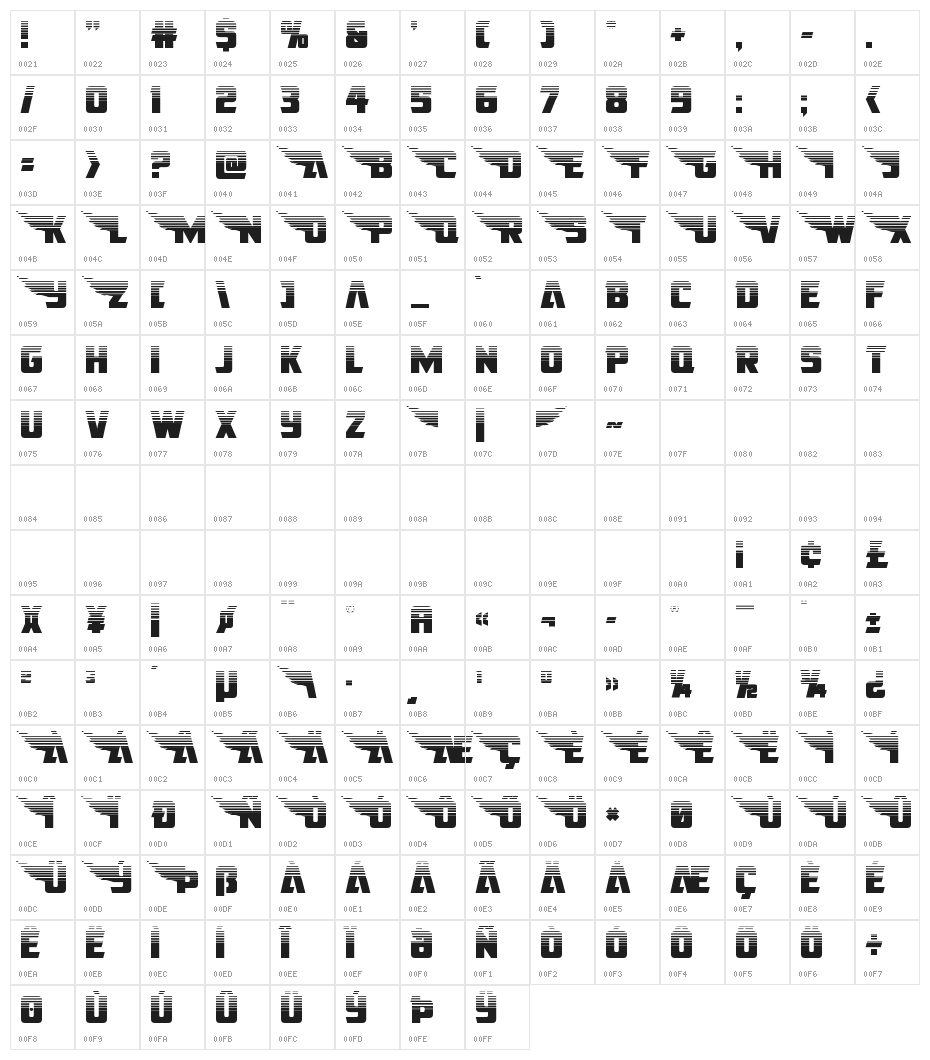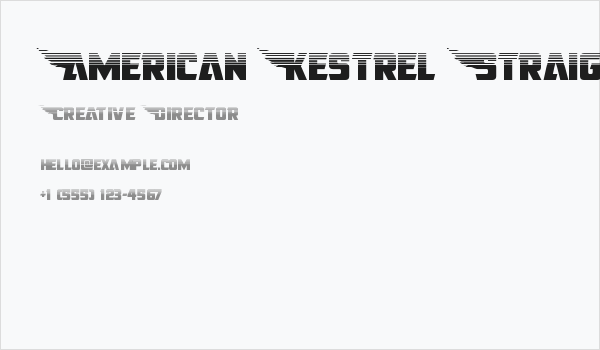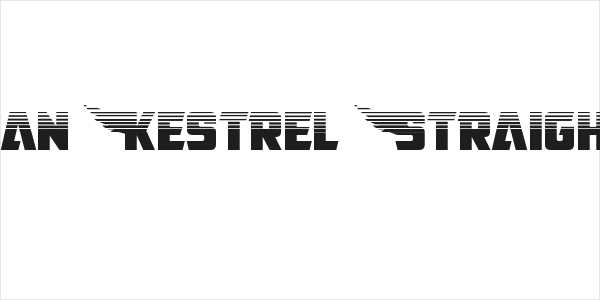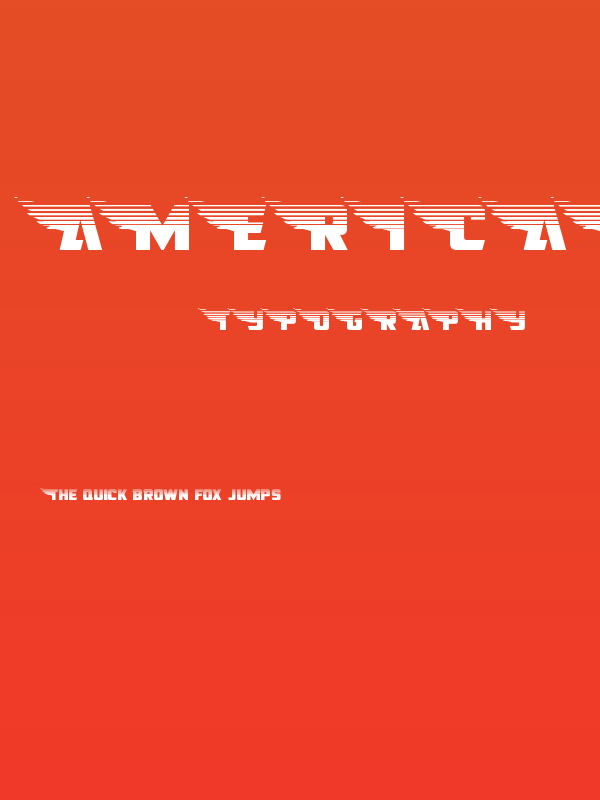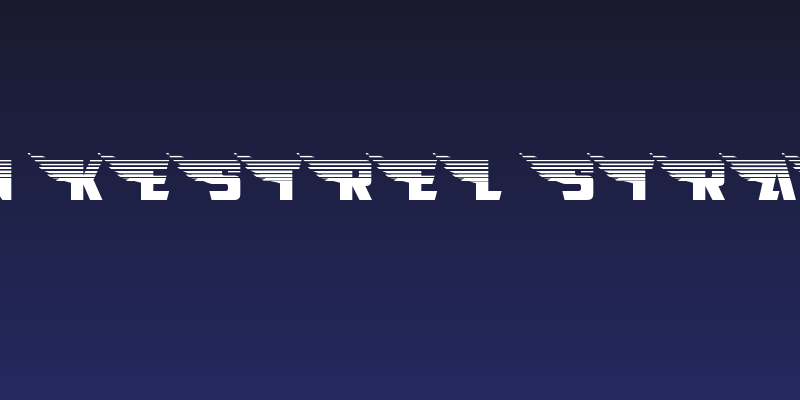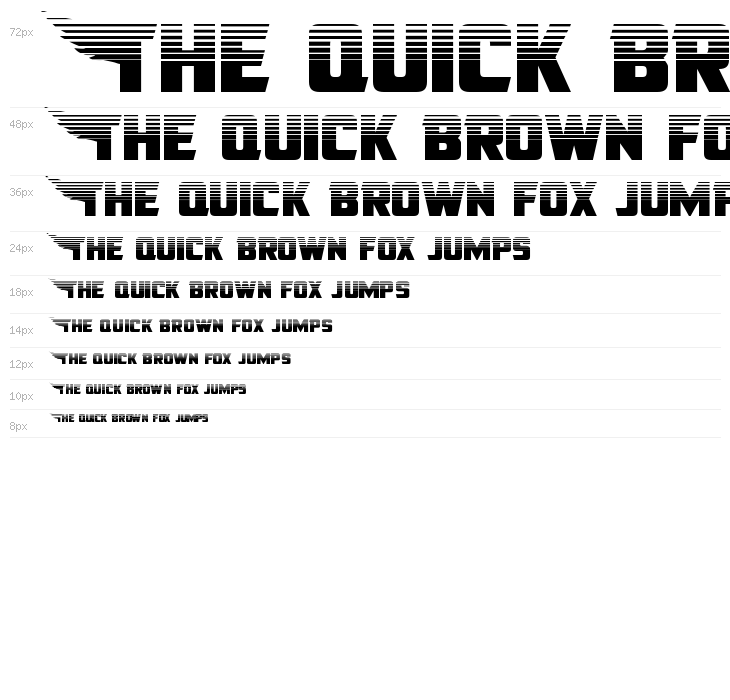
American Kestrel Straight Half Font
American Kestrel Straight Half Description
This font features a bold and striking design with a unique horizontal stripe pattern that creates a sense of movement and dynamism. The uppercase letters are robust and wide, with a distinct geometric style that gives them a modern and industrial feel. The lowercase letters maintain the same boldness and are designed to complement the uppercase set seamlessly. Numbers and special characters follow the same design principles, ensuring consistency across all characters. The font's high contrast and thick strokes make it highly legible and impactful, ideal for making a strong visual statement.